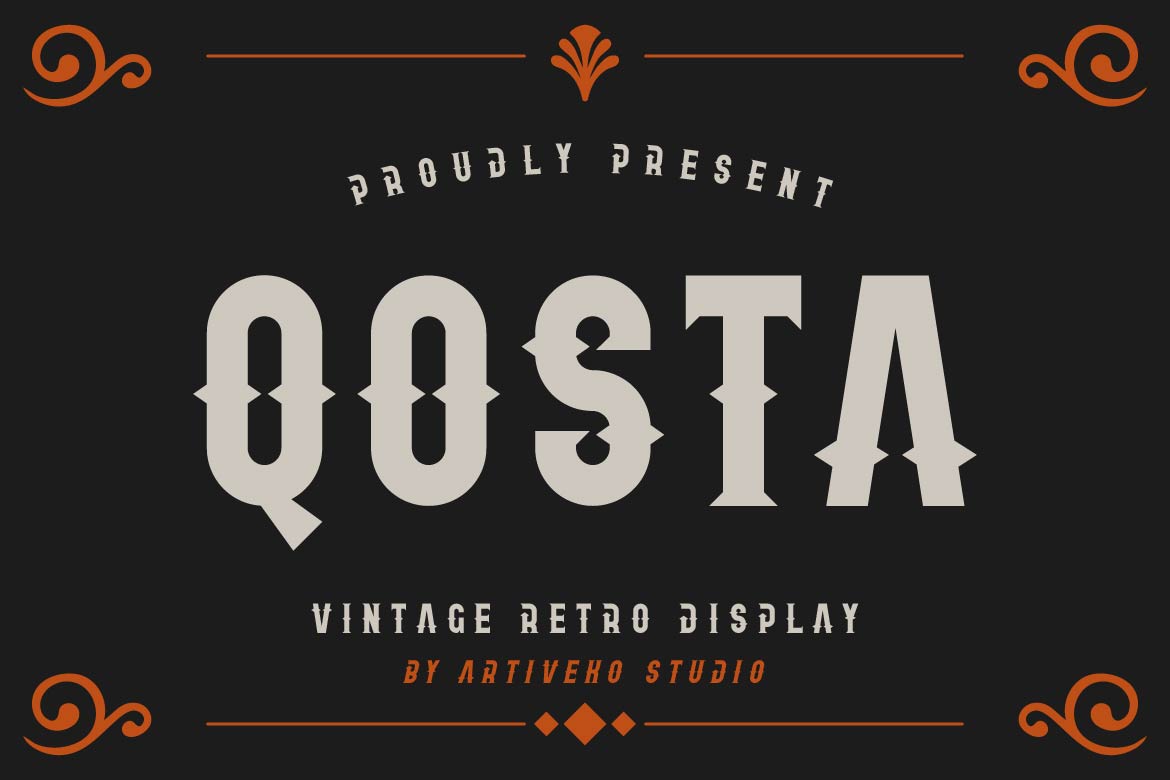
- Qosta – Vintage Retro Display Font for Classic Branding
Qosta is a vintage retro display typeface crafted to capture the timeless charm of classic typography. With bold character shapes, nostalgic styling, and strong visual personality, Qosta brings old-school energy into modern creative projects.
Perfect for posters, logos, branding, signage, packaging, merchandise, and editorial design, Qosta creates standout visuals with authentic retro appeal. Its distinctive display structure is ideal for large headlines and branding applications where personality matters most.
Whether you’re designing vintage-inspired labels, heritage branding, or retro promotional materials, Qosta delivers warmth, character, and timeless style.
Qosta is not just a font — it’s a retro revival for bold creative expression.